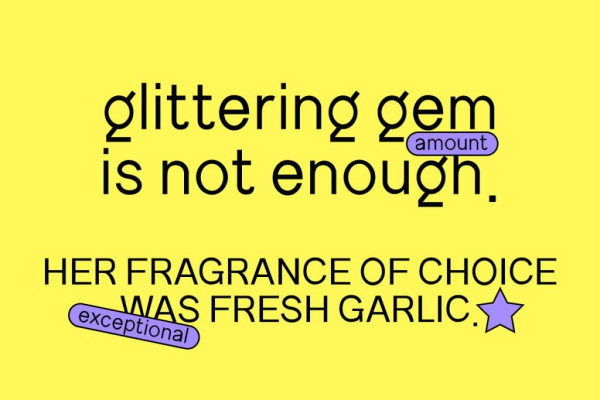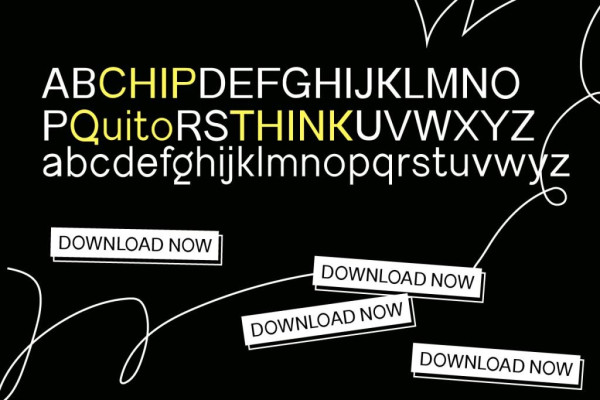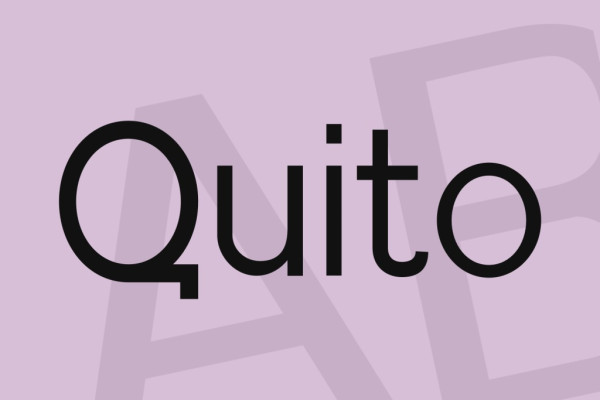
Quito Font
Quito Font, an futuristic modern sans serif font. The letters are adorably quirky, creating a modern look and approachable aesthetic. Ideal for comic books, titles, posters, and more, Quito Font adds a touch of playfulness to any design.